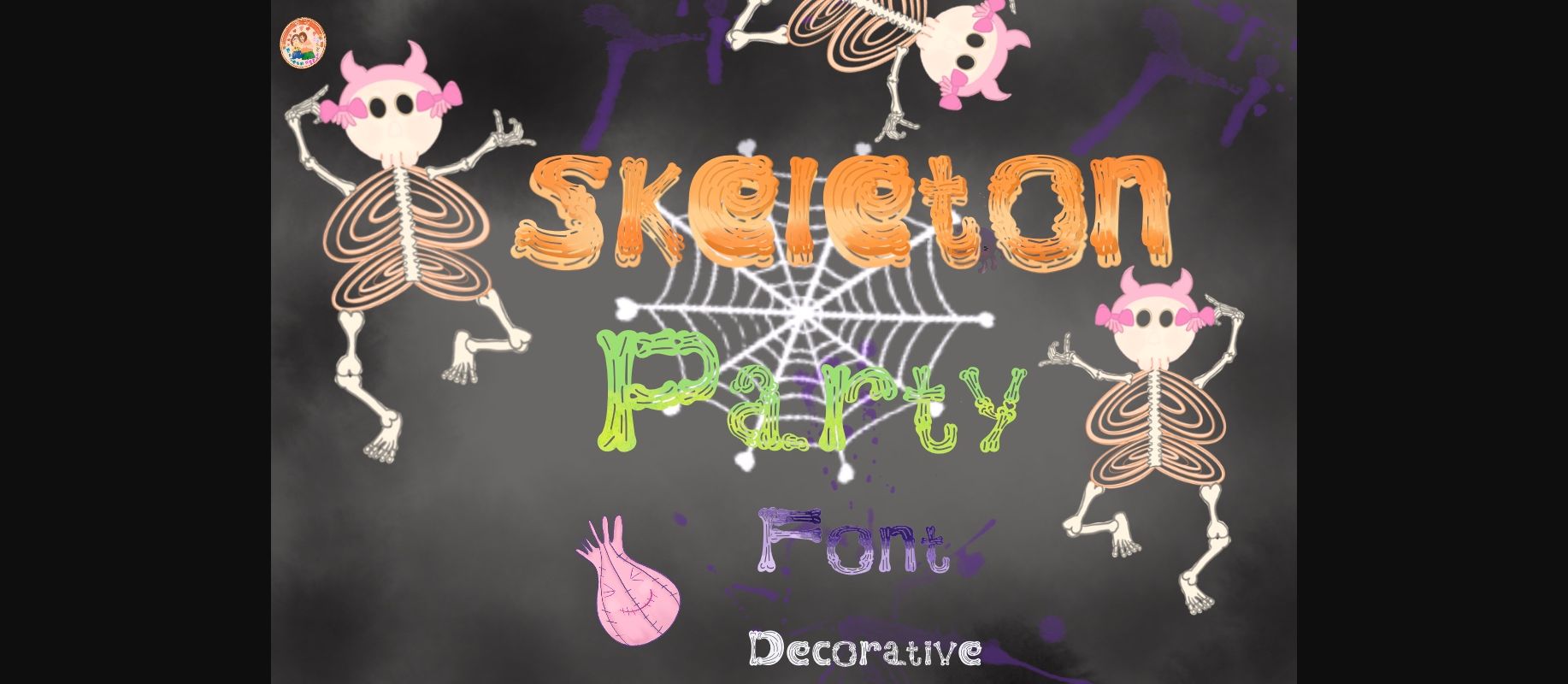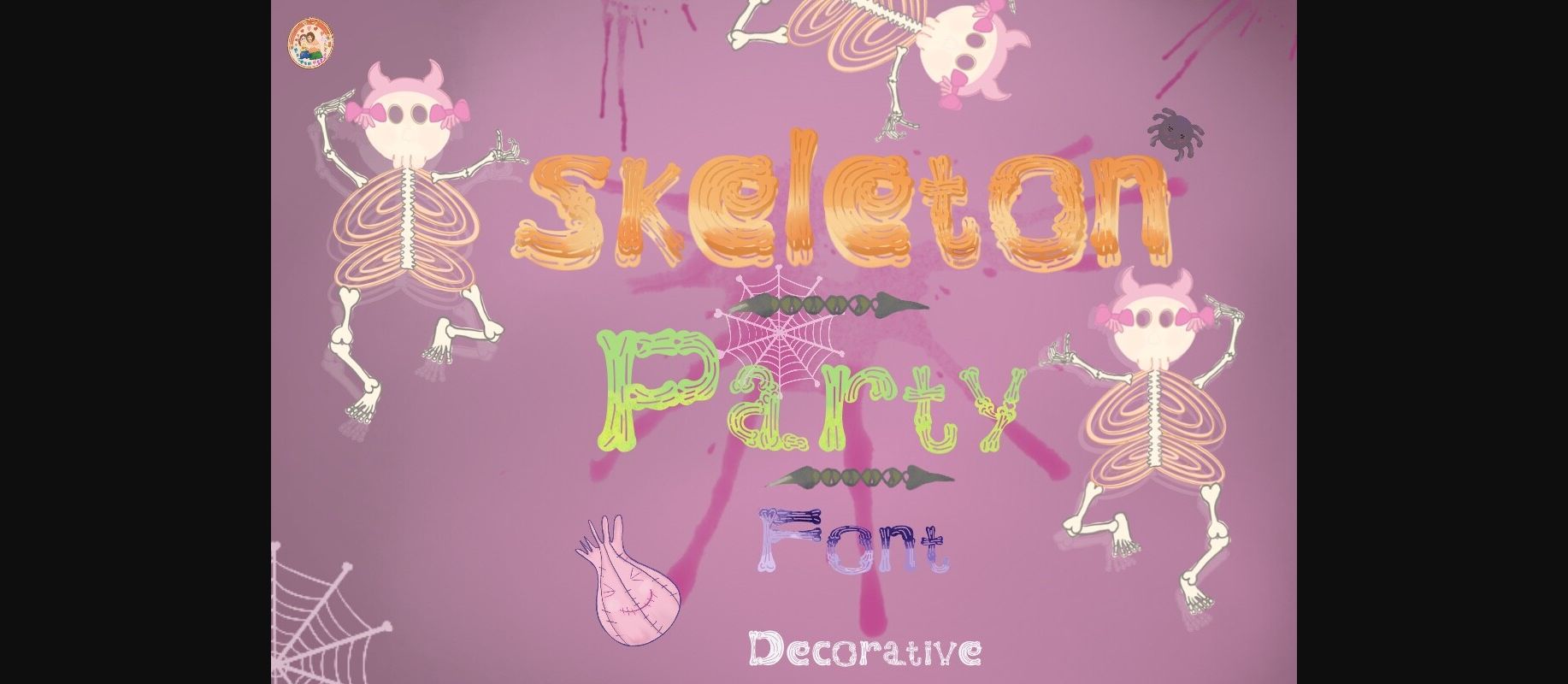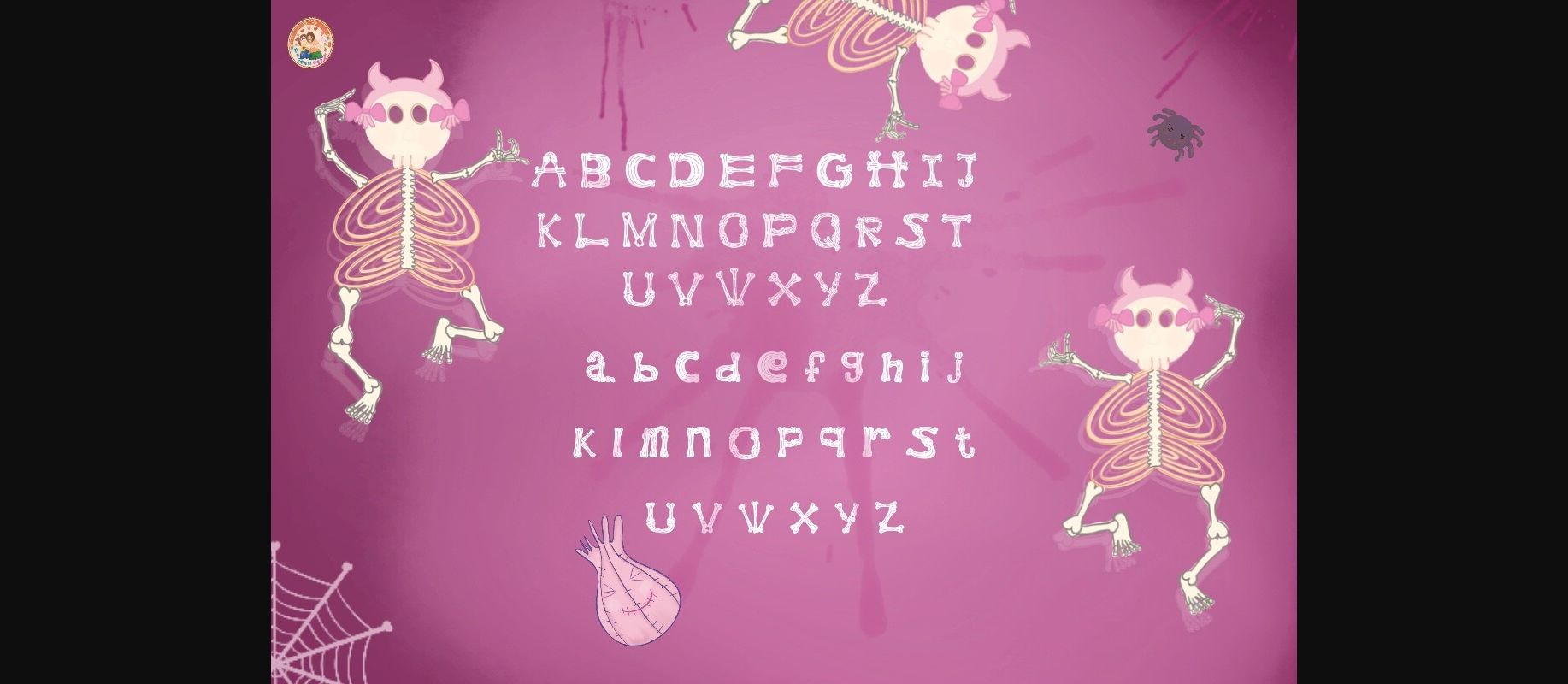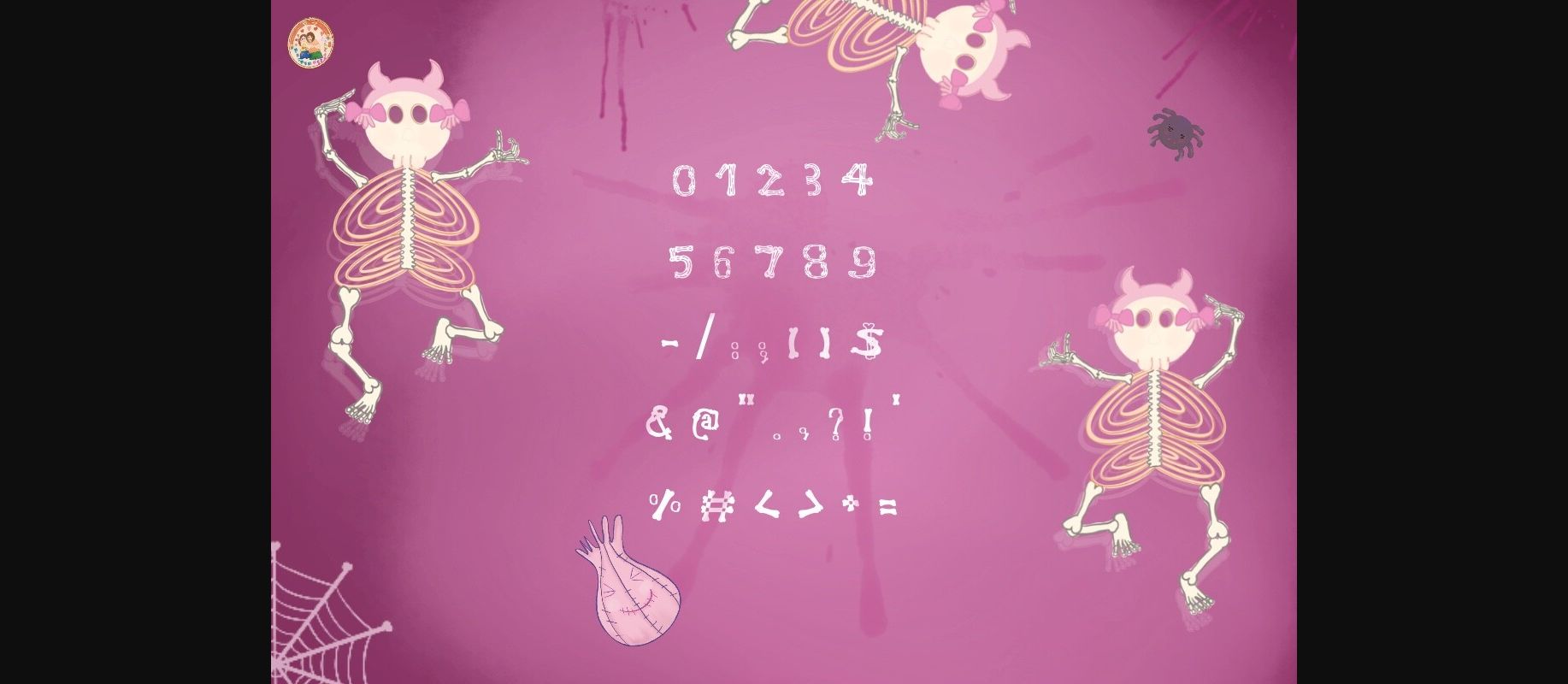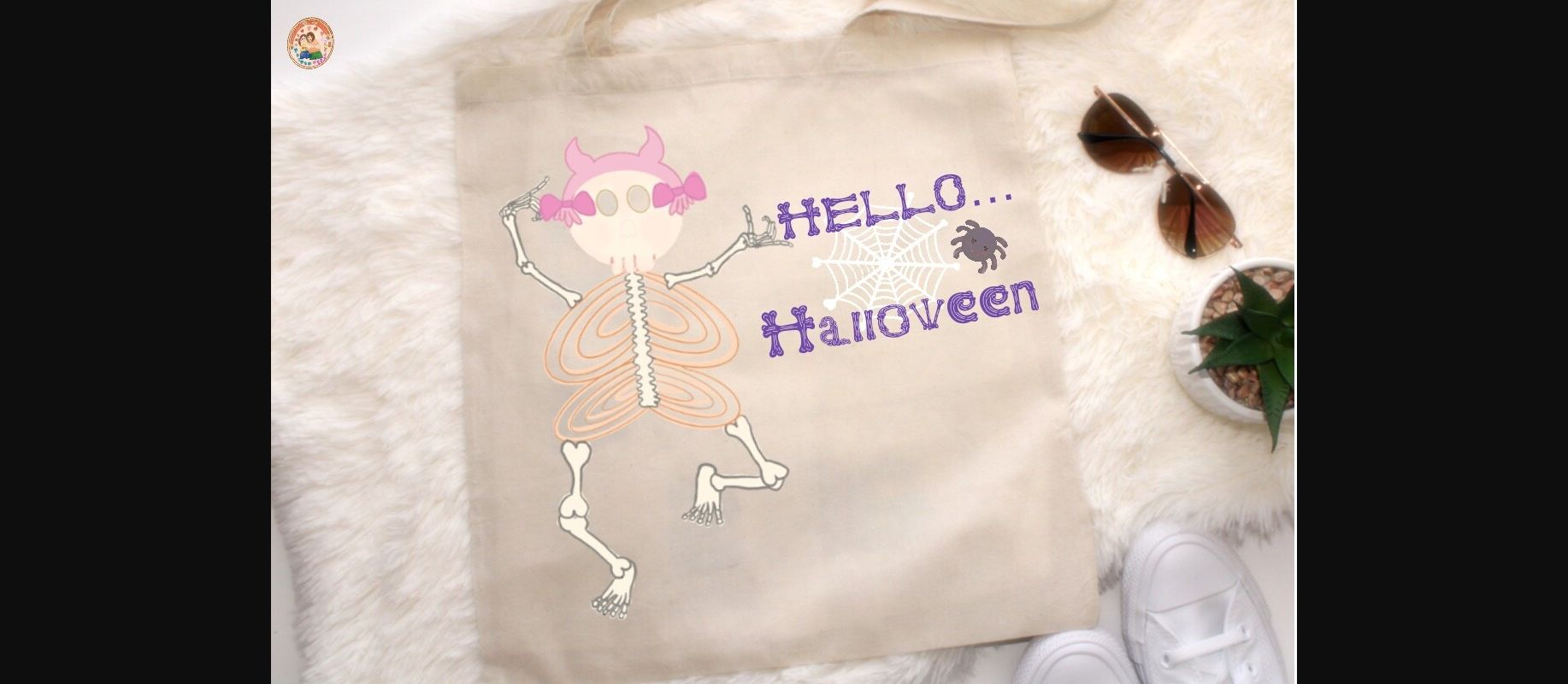
Skeleton is a cute and fun Halloween font. This creative decorative typeface is perfect for October projects, invitations, product packaging, quotes, product design, crafting, labels, photography, watermarks, logos & branding.